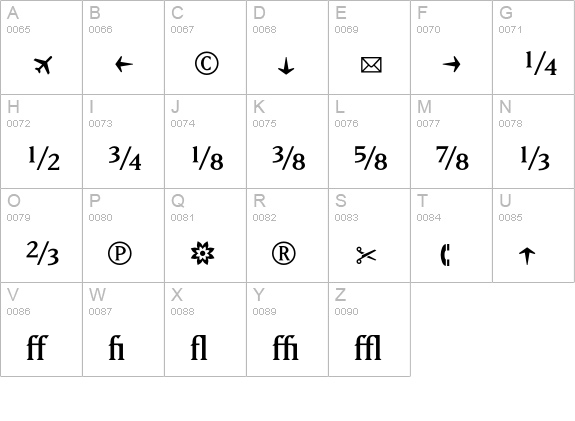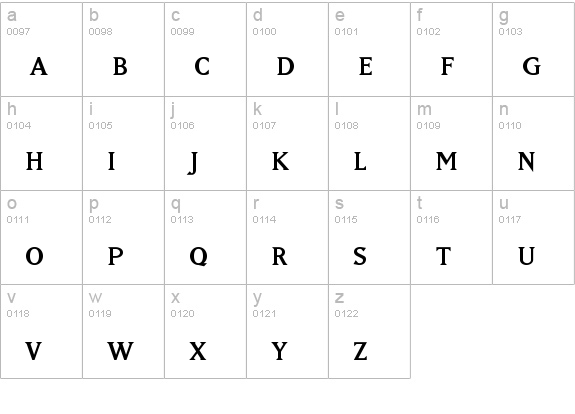
MatrixRegularFractions Font Details
MatrixRegularFractions font is a sleek and modern typeface perfect for adding a touch of elegance to your design projects. With its clean lines and sophisticated look, this font is ideal for creating professional documents, stylish logos, or eye-catching advertisements. The fractions in this font are beautifully designed, making them perfect for any project that requires precise and accurate numerical representation. Best of all, MatrixRegularFractions is completely free to download at FontsMarket.com. You can easily access this versatile font and elevate your designs without any cost. Don't miss out on the opportunity to enhance your work with this high-quality typeface that combines functionality and style seamlessly. Download MatrixRegularFractions today and unleash your creativity with this exceptional font.